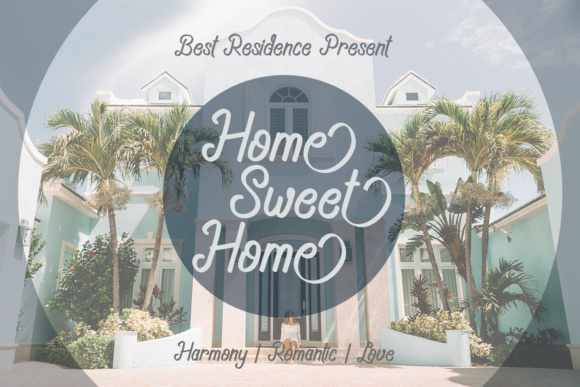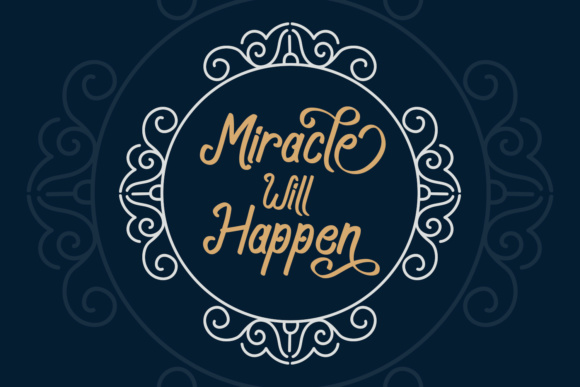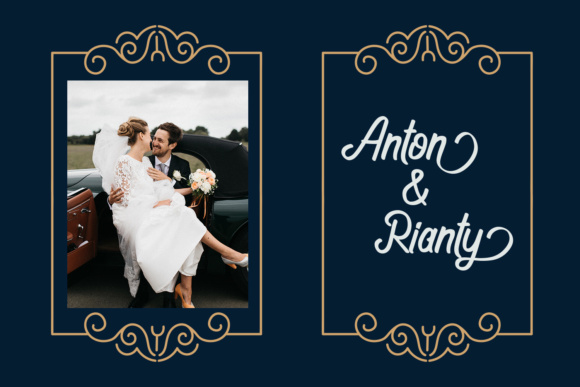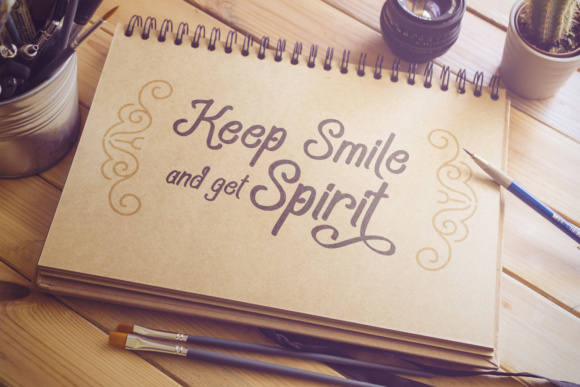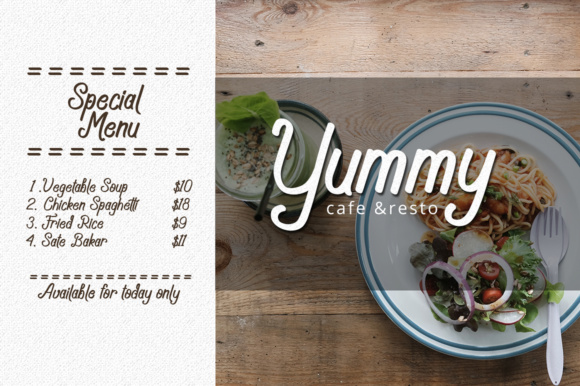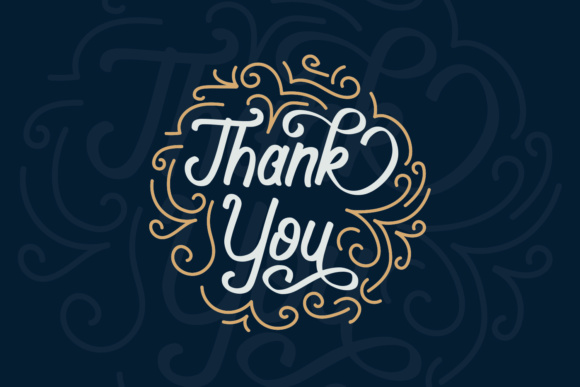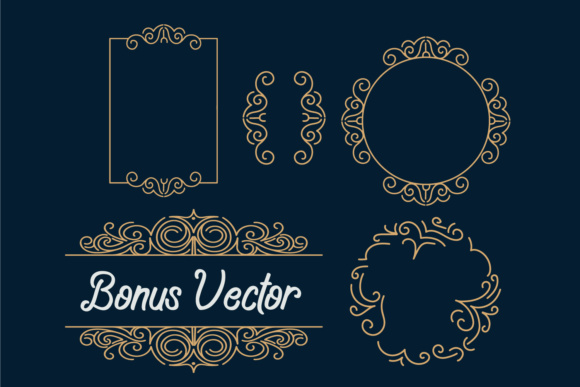
Navara Font
About Navara Font
Navara is an elegant and clean stylish brush font, inspired by the easiness of cursive handwriting. This font has such a stylistic simplicity but is detailed enough to give your projects an inspired look.